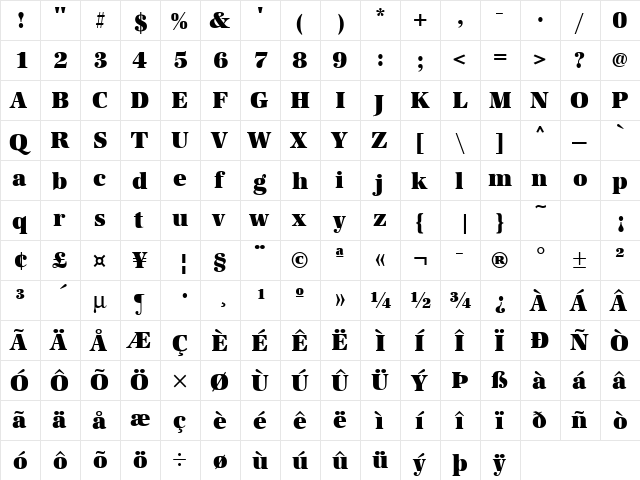
URWAntiquaTUltBolNar Regular
URWAntiquaTUltBolNar takes a measured approach to typography — its balanced proportions and neutral character make it a reliable workhorse for both digital and print work.